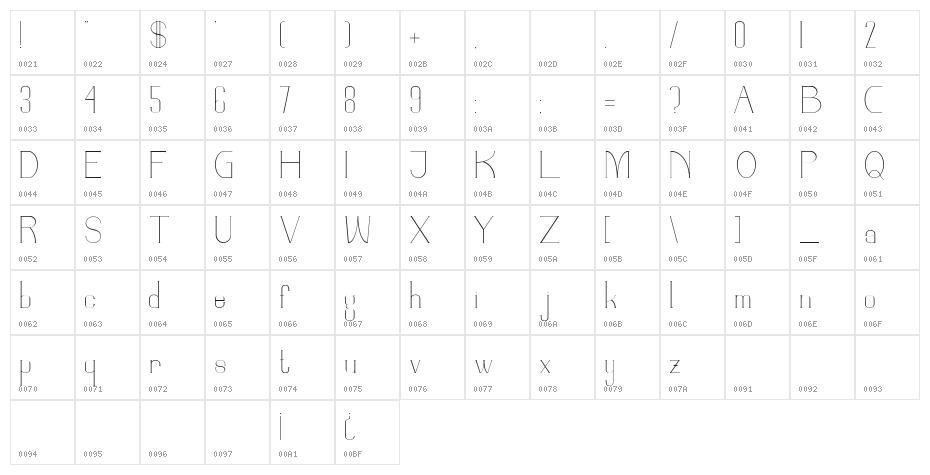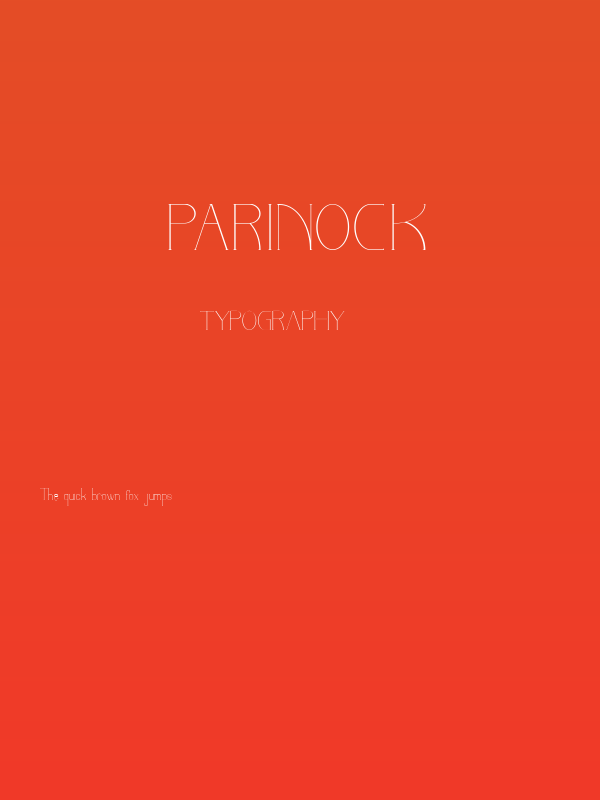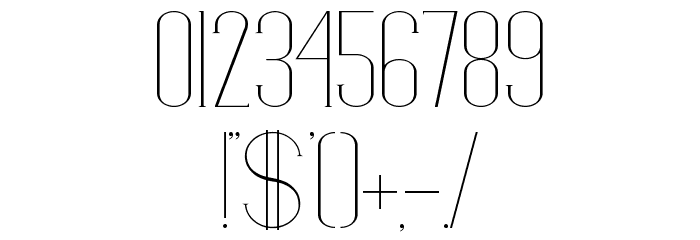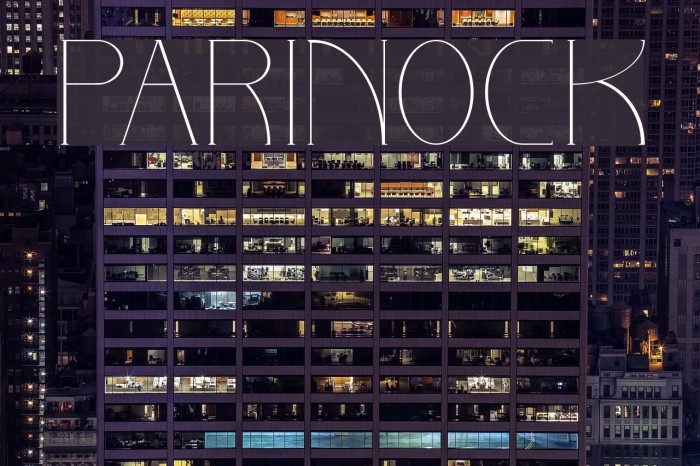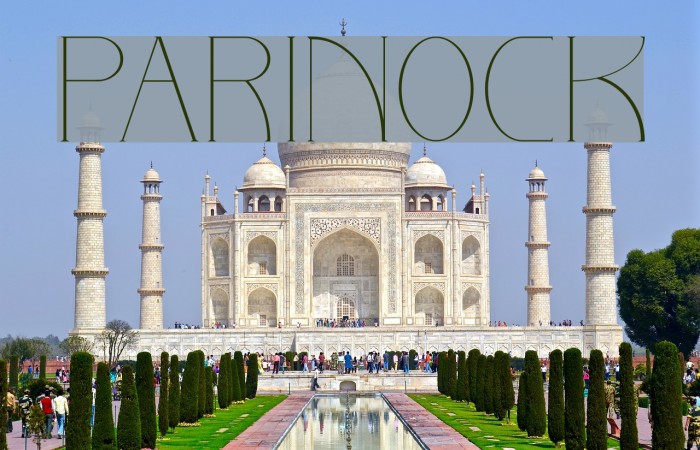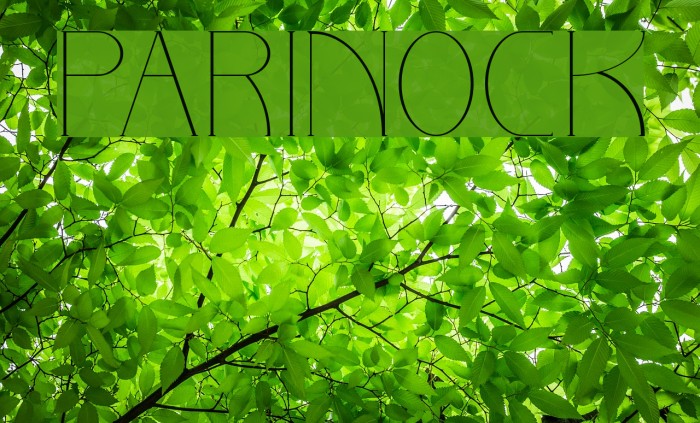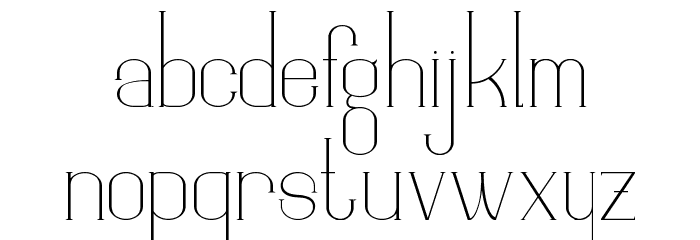
PARINOCK Font
PARINOCK Description
This font features a modern and elegant design with thin, elongated strokes that create a sense of sophistication and minimalism. The uppercase letters are tall and narrow, with a slight geometric influence, while the lowercase letters maintain a consistent height and style, enhancing readability. The numerals are similarly styled, offering a cohesive look across all characters. Special characters are designed with the same thin lines, ensuring uniformity throughout the font. This typeface is ideal for projects that require a sleek and contemporary aesthetic.
| Proposed Projects | Ideal for fashion magazines, luxury branding, modern websites, and minimalist design projects. |